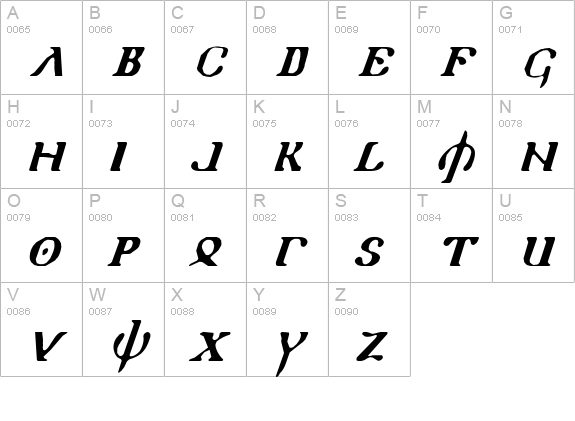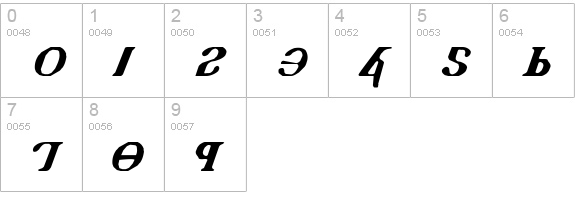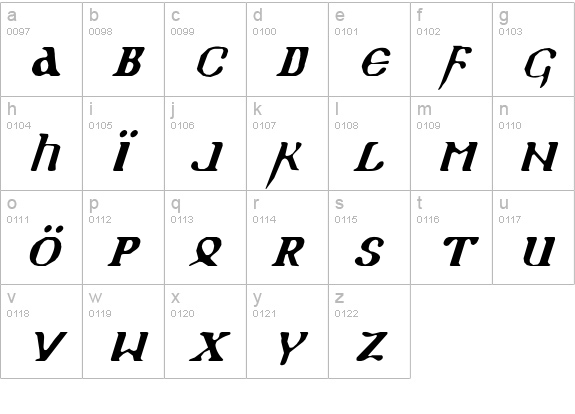
Holy Empire Italic Font Details
Holy Empire Italic is a distinctive, italic variant in the Holy typeface family \xE2\x80\x94 well suited to design and typography projects.
The Holy Empire Italic font exudes an aura of elegance and sophistication with its delicate and flowing curves. Its unique italic style adds a touch of class to any project, making it perfect for invitations, branding, and editorial design. This font strikes the perfect balance between traditional and modern, making it versatile for a wide range of design applications. Best of all, the Holy Empire Italic font is available for free download at FontsMarket.com. Take advantage of this opportunity to enhance your projects with this stunning typeface, without any cost. Download now and elevate your designs with the timeless beauty of Holy Empire Italic font.